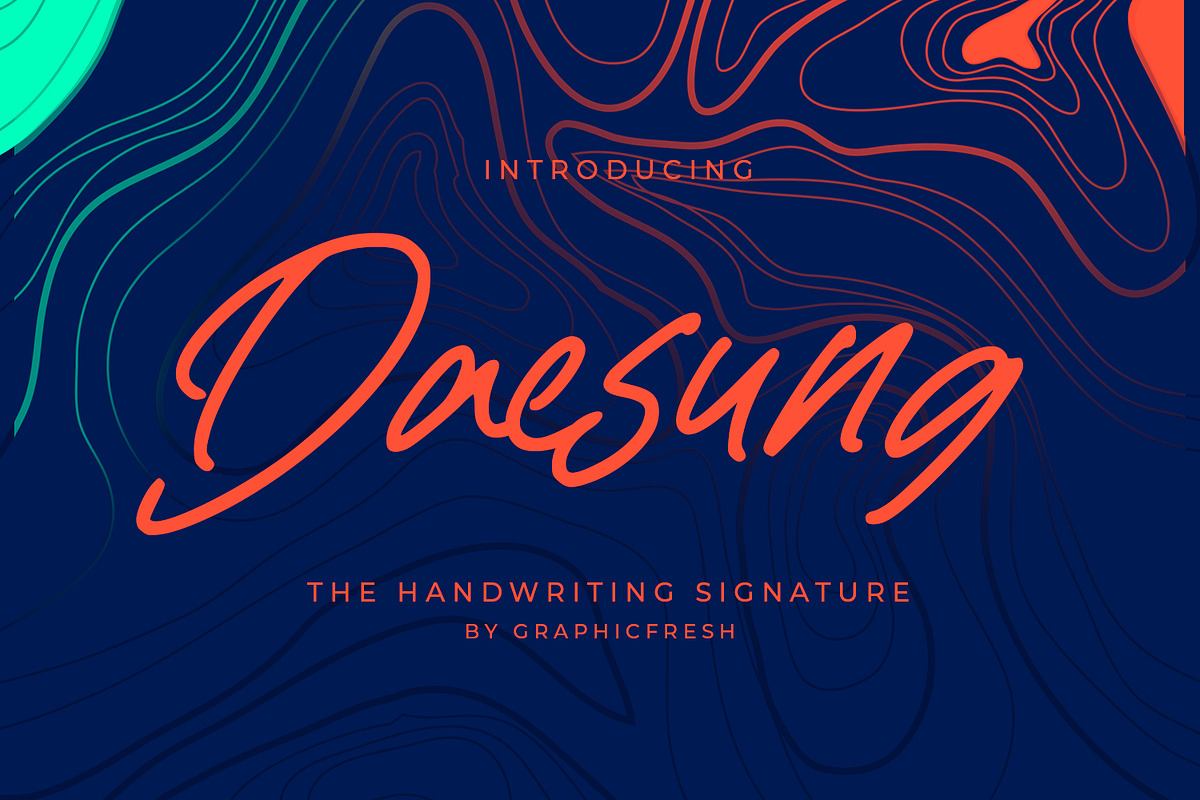
Daesung - The Handwriting Signature Free Download
Daesung - The Handwriting Signature Font Free Download
Daesung - The Handwriting Signature Font Free Download is a sophisticated and stylish script typeface that combines the beauty of handwritten calligraphy with modern elegance. With its fluid strokes and flowing letterforms, this font is perfect for creating personalized logos, invitations, branding, and more. Its signature-style design gives a refined and authentic feel, making it ideal for high-end projects like weddings, luxury products, and creative campaigns. Whether you’re working on a chic brand identity or crafting a bespoke invitation, Daesung - The Handwriting Signature Font Free Download lets you explore its graceful style in personal projects before purchasing a commercial license. Add elegance and personality to your designs with this beautifully crafted signature font.